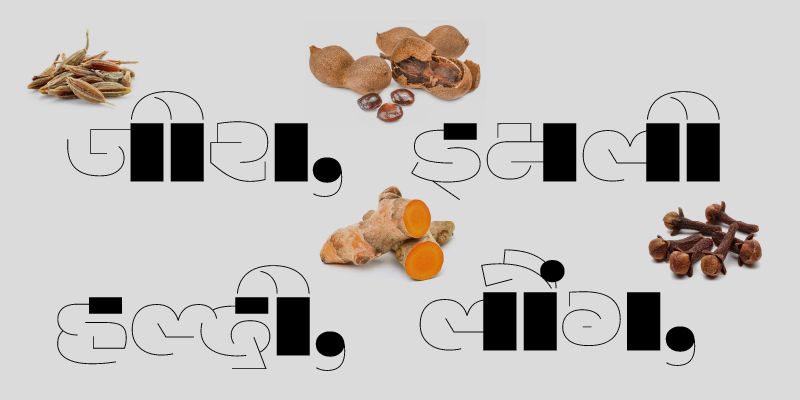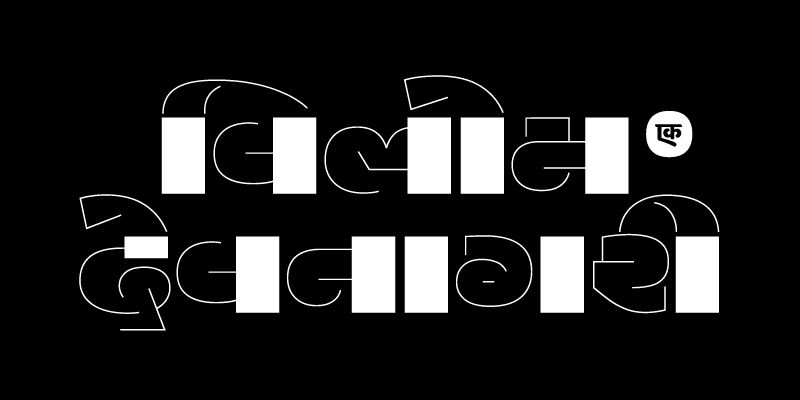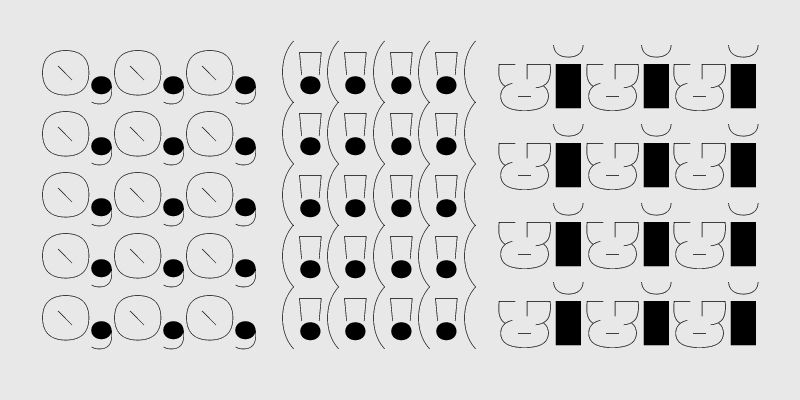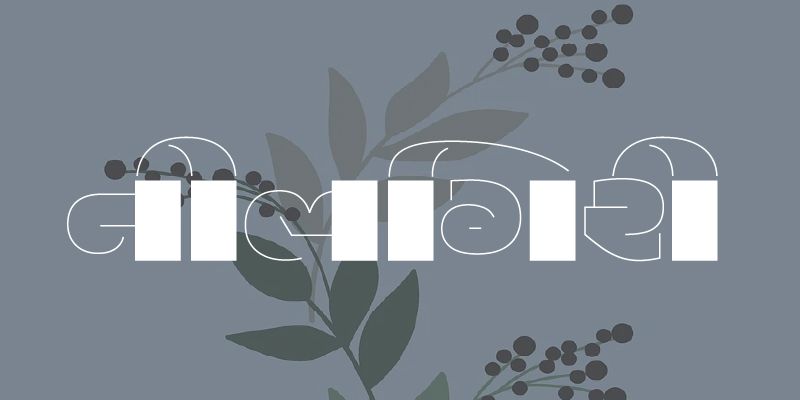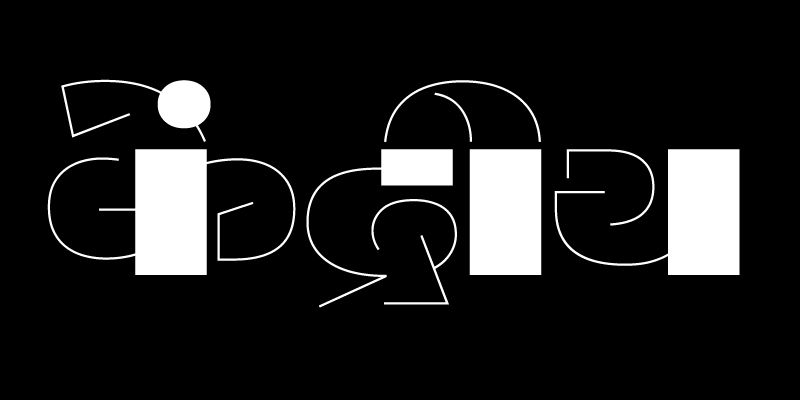
Vilom is an extension of a lettering piece designed for a book titled Drukchintan (दृक् चिंतन), a compilation of essays on works of Modern artists from India and the world. In the spirit of Modern art, Vilom attempts to breaks away from tradition and experiments with the visual form of the Devanagari script. While the solid rectangles and circles of the Dandas(दंड) and Bindus(बिंदू ) dominate the visual space, the thin lines define character shapes; a fine balance of abstraction and legibility.